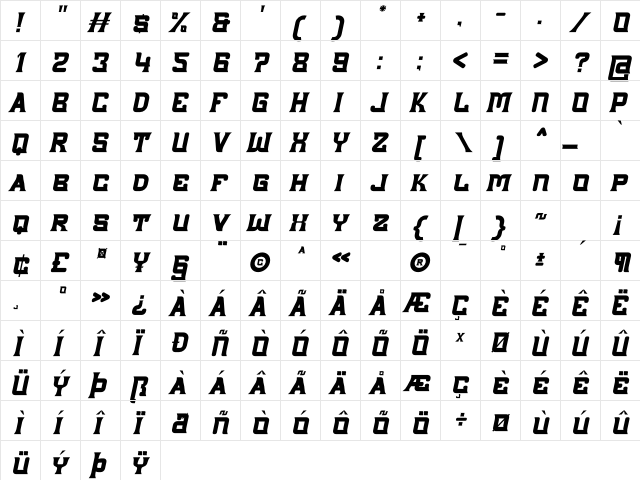
Big Lake Italic Regular
Design Context for Big Lake Italic Typeface
Big Lake Italic is a composed and adaptable typeface that performs quietly and consistently across a wide range of design contexts. Its italic angle brings a sense of urgency and motion to the letterforms.
Pro Tip: Try Big Lake Italic for annotation and caption copy alongside an upright companion — the contrast in angle creates a dynamic but ordered typographic system.